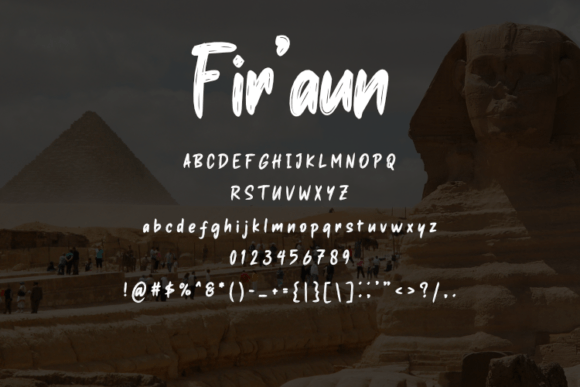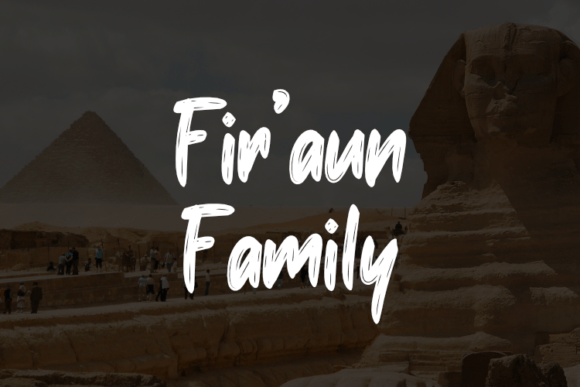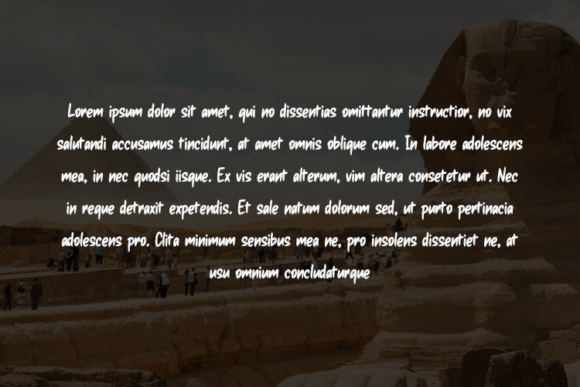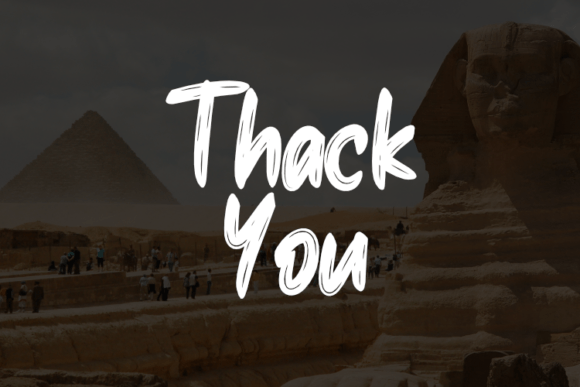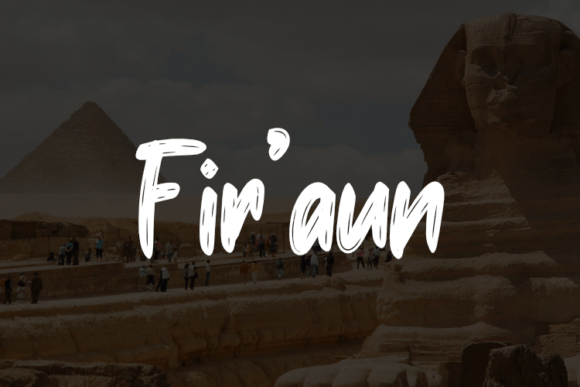
Unleash Royalty: Discover the Fir’aun Font for Unparalleled Design
In the realm of design, typography plays a pivotal role in conveying messages, evoking emotions, and creating lasting impressions. For designers and crafters seeking to elevate their visual creations, the Fir’aun font emerges as a game-changer. This ingeniously crafted typeface is not just a font; it’s an artistry tool designed to breathe life into your clothing and product designs, offering a regal allure that’s hard to overlook.
The Universal Applicability of Fir’aun
One of the standout features of the Fir’aun font is its universal applicability. Whether you’re working on a t-shirt design, crafting a brand identity, or elevating a product’s aesthetic, Fir’aun seamlessly integrates into any design or software environment. This versatility is crucial for designers who work across various mediums and need a reliable font that can adapt to different contexts.
Elevate Your Designs with Elegance and Authority
Fir’aun is more than just a collection of letters; it’s a statement of elegance and authority. Its design exudes a sense of luxury and sophistication, making it perfect for projects that demand a high-end look. Whether you’re aiming to create a bold statement or a subtle nuance, Fir’aun helps you achieve your design goals with its distinctive character.
Seamless Integration into Any Design Workflow
In today’s fast-paced design world, efficiency and compatibility are key. The Fir’aun font is designed to work flawlessly across various platforms and software. Whether you’re using Adobe Creative Suite, Sketch, or any other design tool, Fir’aun becomes an integral part of your workflow, allowing you to focus on creativity rather than technical limitations.
Why Designers and Crafters Love Fir’aun
- Regal Aesthetic: Fir’aun brings an unmatched royal allure to your designs, setting them apart from the ordinary.
- Versatility: Its universal applicability makes it a go-to font for a wide range of projects, from fashion to product design.
- Ease of Use: Designed for seamless integration into any design workflow, Fir’aun saves you time and boosts productivity.
- Customization: With its unique design elements, Fir’aun offers ample opportunities for customization, allowing your creativity to shine.
Applications of Fir’aun Font
The potential applications of the Fir’aun font are vast and varied. Here are a few ideas to get you started:
- Fashion Design: Add a touch of royalty to your clothing lines, making them stand out in the fashion world.
- Product Branding: Elevate your product’s aesthetic appeal, making it more attractive to potential customers.
- Marketing Materials: Use Fir’aun in your brochures, posters, and digital ads to create visually stunning marketing materials.
- Packaging Design: Give your product packaging a luxurious look that reflects the quality of your offerings.
The Fir’aun font is an indispensable tool for designers and crafters looking to infuse their work with elegance, authority, and a touch of royalty. Its universal applicability, ease of use, and stunning design make it a valuable addition to any creative arsenal. Whether you’re looking to make a bold statement or add a subtle touch of sophistication, Fir’aun is your gateway to unparalleled design excellence.
Embark on a journey of creative exploration with Fir’aun, and discover how this remarkable font can transform your designs into timeless works of art.